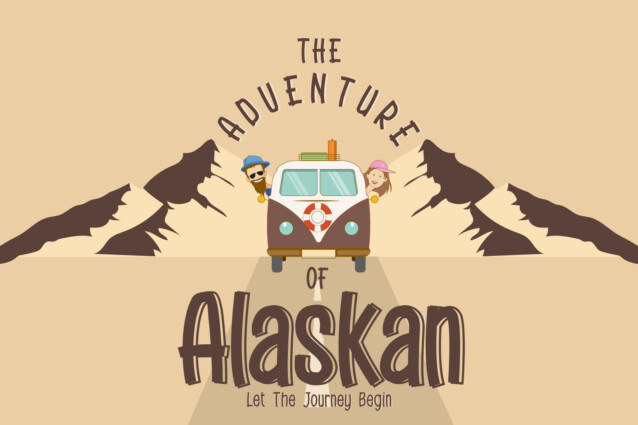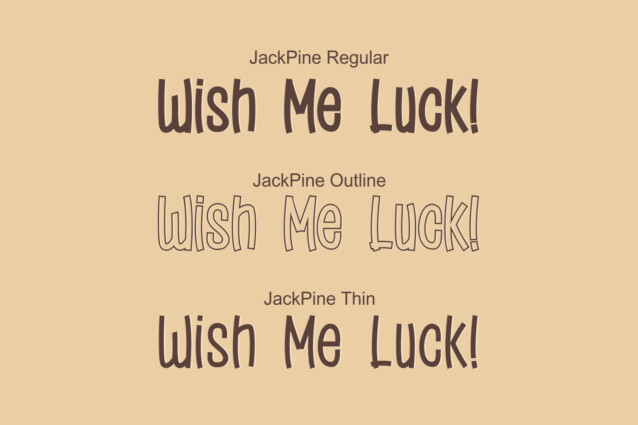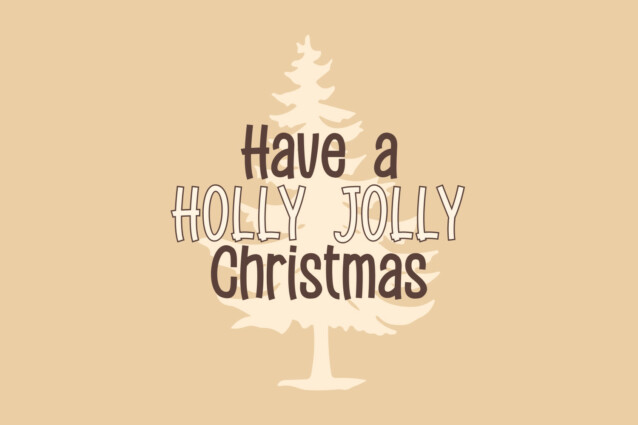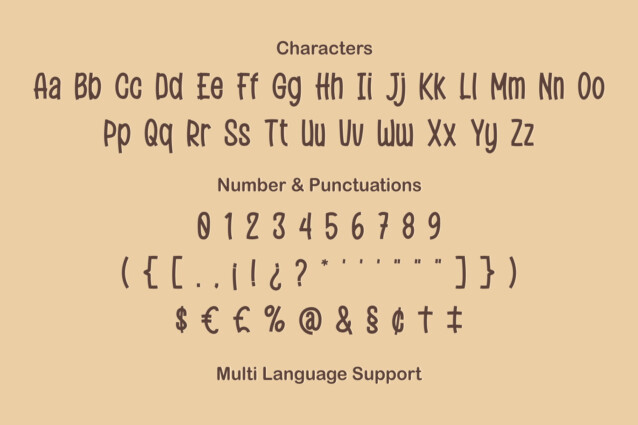
Jack Pine Font
Introducing Jack Pine our likeable and unique display font!
With their distinct and playful design, this fonts comes with three style: Regular, Thin and Outline that are ideal for a variety of projects.
Whether you’re working on eye-catching advertisements, captivating social media posts, engaging website headers, or creative branding materials, our display fonts will bring your content to life.